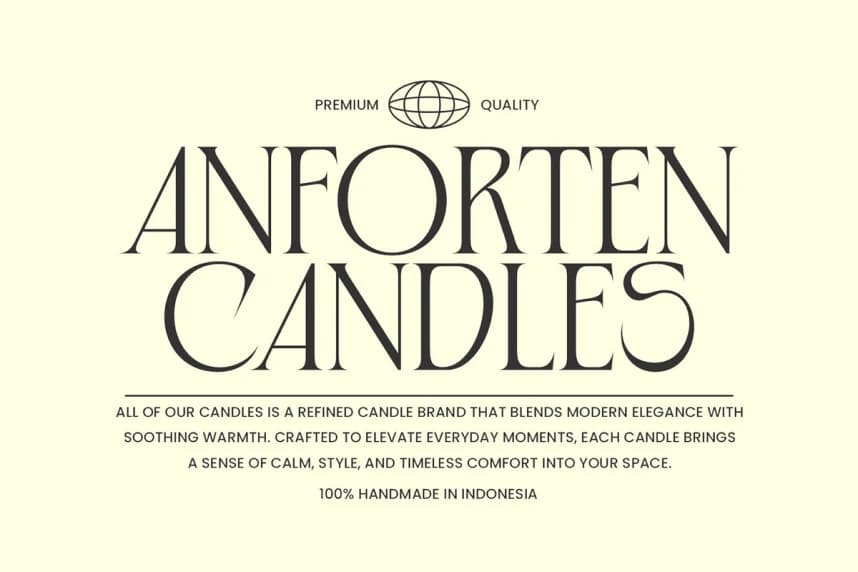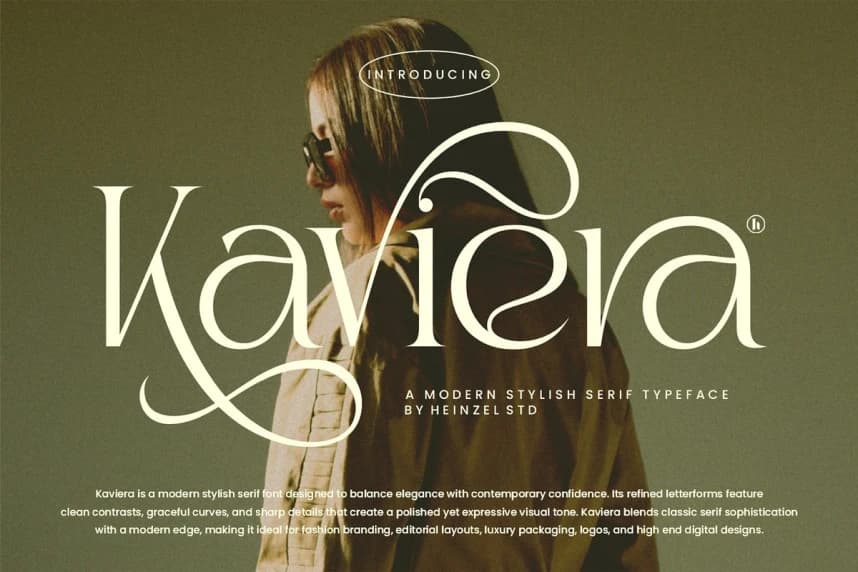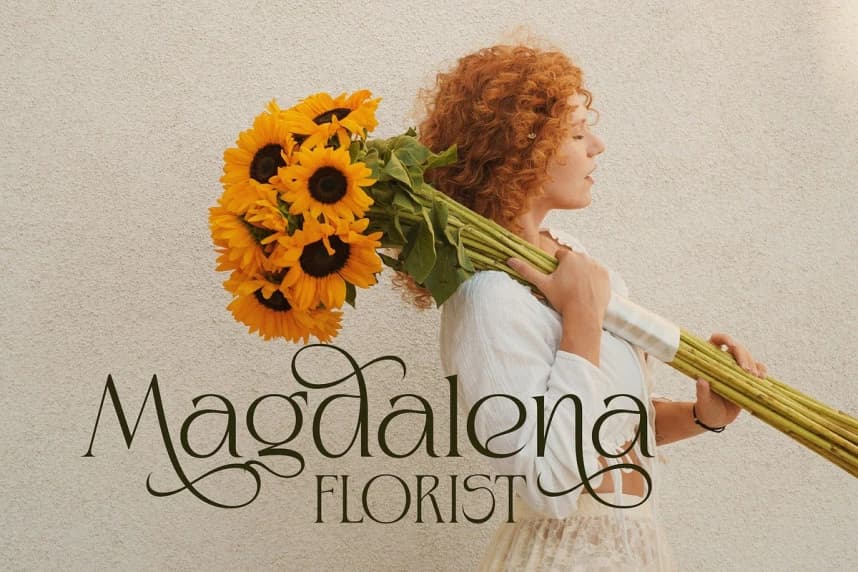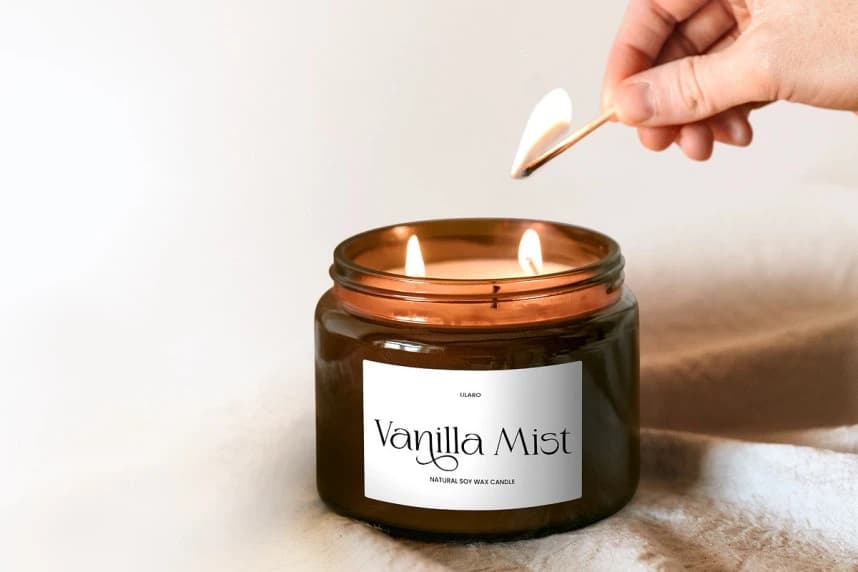
Kaviera Font is a modern stylish serif font crafted to balance timeless elegance with contemporary confidence. Featuring refined letterforms, graceful curves, and sharp contrast, Kaviera delivers a sophisticated yet expressive visual tone.